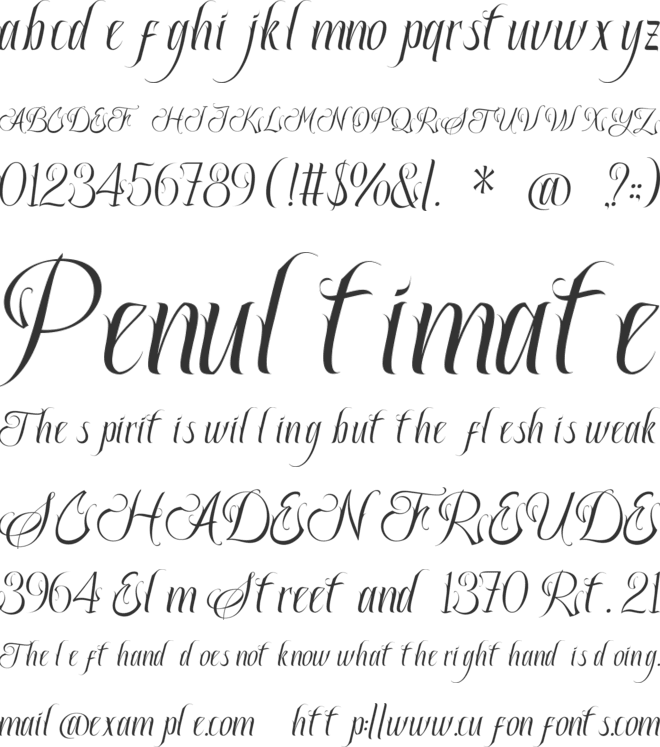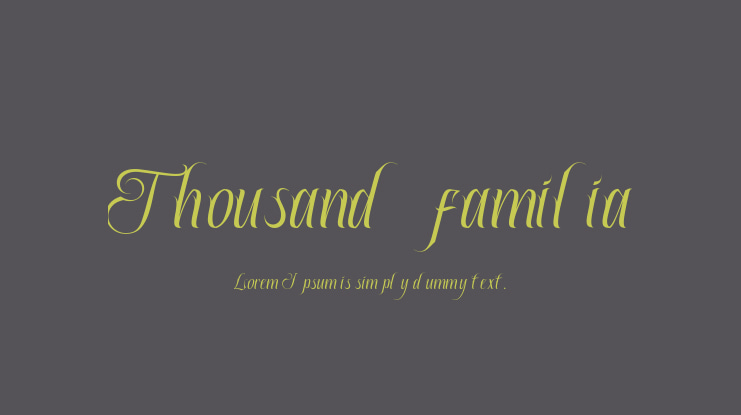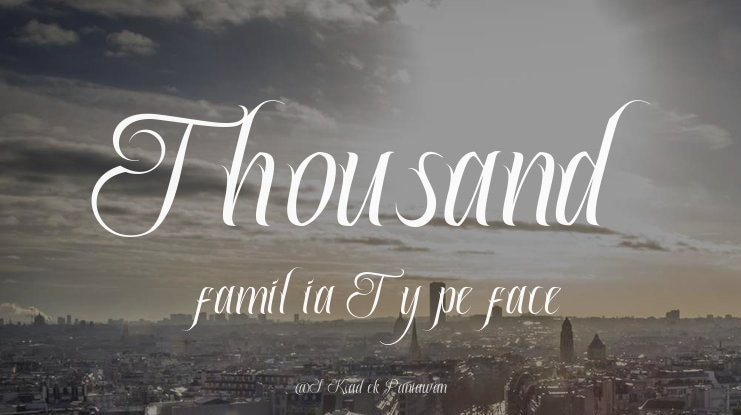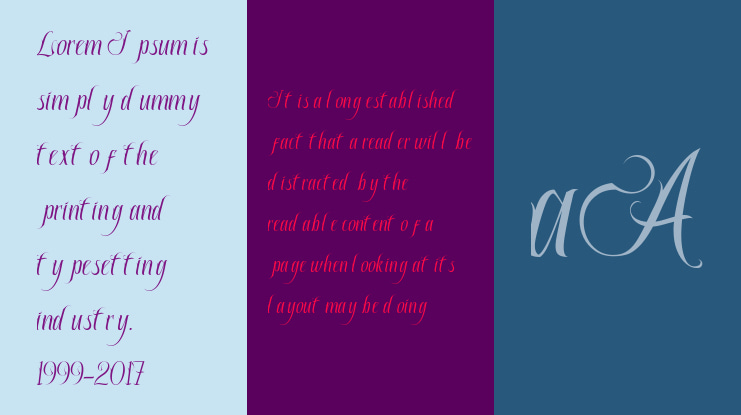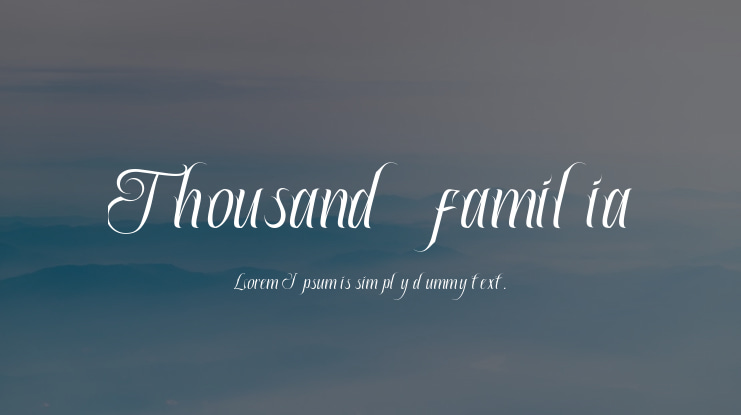
Thousand familia Font
I Kadek Paniawan
Thausand Familia: Embrace the Art of Ink with Every Letter
Step into the rich, bold world of "Thausand Familia," a script font that masterfully blends the fierce spirit of Mexican gangster tattoo artistry with contemporary elegance. Designed for those who dare to express their creativity without limits, Thausand Familia brings a unique, hand-inked aesthetic to your projects.